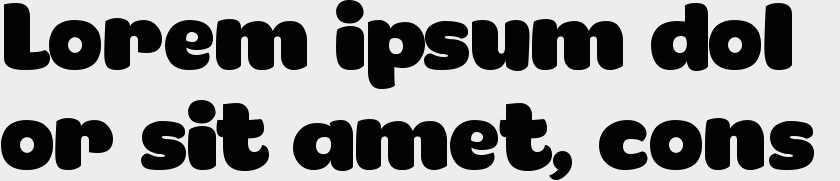
Pony
sans serif typeface inspired by the graphic child as is "little pony" Play around with that sweetness and tries to be entertaining at the same time, also has alternatives as swash and Cyrillic.
Designer: Rodrigo Araya Salas